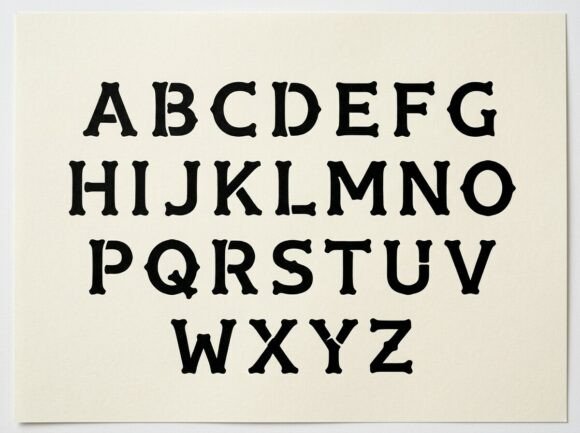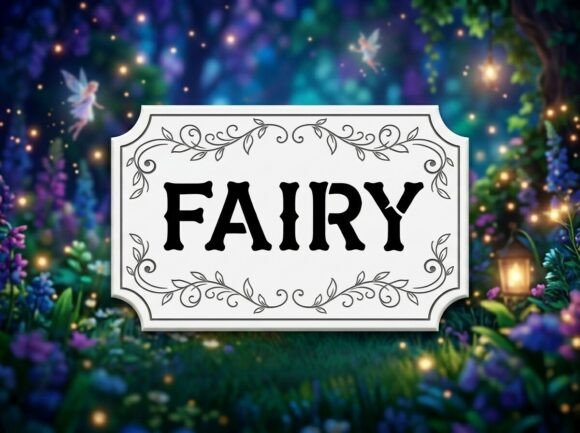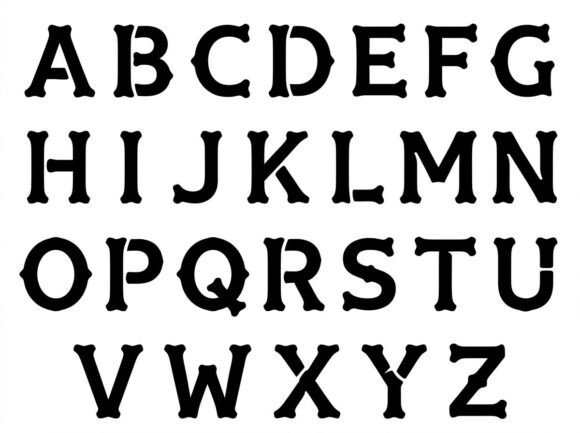
Introducing Fairy Font: A Stunning Decorative Display Font
Are you tired of using the same old fonts for your creative projects? Look no further than Fairy Font, a breathtaking decorative display font that’s sure to turn heads. With its unique artistic elements and strong visual personality, this font is perfect for creators who want to break away from the ordinary and make a statement.
What Makes Fairy Font So Special?
Fairy Font is a versatile decorative font that’s designed to be the center of attention. Its stunning visual elements and strong personality make it ideal for bold headlines, artistic logos, and creative packaging. Whether you’re a designer, crafty DIY enthusiast, or entrepreneur, this font is sure to elevate your projects to the next level.
Why Choose Fairy Font?
There are many reasons why Fairy Font stands out from the crowd:
- Unique Artistic Elements: Each letter in Fairy Font is carefully crafted to be a work of art, making it perfect for decorative projects.
- Strong Visual Personality: This font has a bold and eye-catching personality that’s sure to grab attention.
- Versatility: Fairy Font can be used for a wide range of projects, from bold headlines and artistic logos to creative packaging.
- Professional and Polished Finish: Despite its decorative nature, Fairy Font maintains a professional and polished finish that’s perfect for high-end projects.
Who Can Benefit from Fairy Font?
Fairy Font is perfect for:
- Graphic Designers: Add a touch of elegance and sophistication to your designs with this stunning font.
- Crafty DIY Enthusiasts: Use Fairy Font to create beautiful and eye-catching craft projects, such as signs, cards, and decorations.
- Entrepreneurs: Stand out from the competition with bold and eye-catching branding and marketing materials.
- Artists and Illustrators: Use Fairy Font to add a decorative touch to your artwork and illustrations.
Tips for Using Fairy Font
Here are some tips for getting the most out of Fairy Font:
- Use it sparingly: Due to its bold and eye-catching nature, Fairy Font is best used sparingly to make a maximum impact.
- Experiment with colors and textures: Try pairing Fairy Font with different colors and textures to create a unique and eye-catching effect.
- Pair it with a simple font: For body text, pair Fairy Font with a simple and easy-to-read font to create visual contrast.
In conclusion, Fairy Font is a stunning decorative display font that’s perfect for creators who want to break away from the ordinary. With its unique artistic elements, strong visual personality, and versatility, this font is sure to elevate your projects to the next level. Whether you’re a designer, crafty DIY enthusiast, or entrepreneur, Fairy Font is a great addition to your font collection.